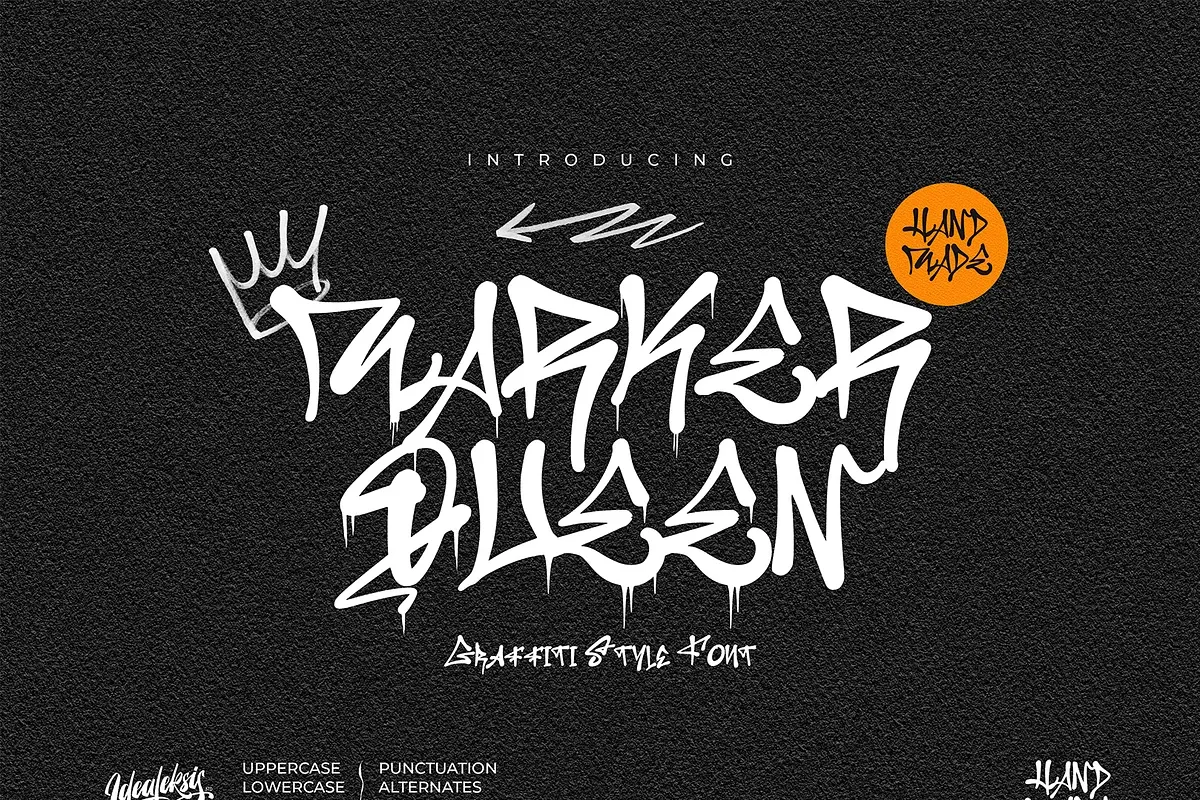
Marker Queen - Graffiti Display Font Free Download
Marker Queen - Graffiti Display Font Free Download is a bold, urban typeface inspired by street art and marker tagging. With its raw strokes, edgy style, and rebellious energy, this font is perfect for hip-hop event flyers, streetwear branding, music artwork, and any design that needs a punch of underground attitude.
Marker Queen - Graffiti Display Font Free Download brings the spirit of graffiti culture into your creative work with authentic, hand-drawn flair. Whether you’re creating a bold logo or designing gritty visual content, this font delivers a powerful street-style presence. Download it now and let Marker Queen make your next project pop with graffiti-inspired edge.